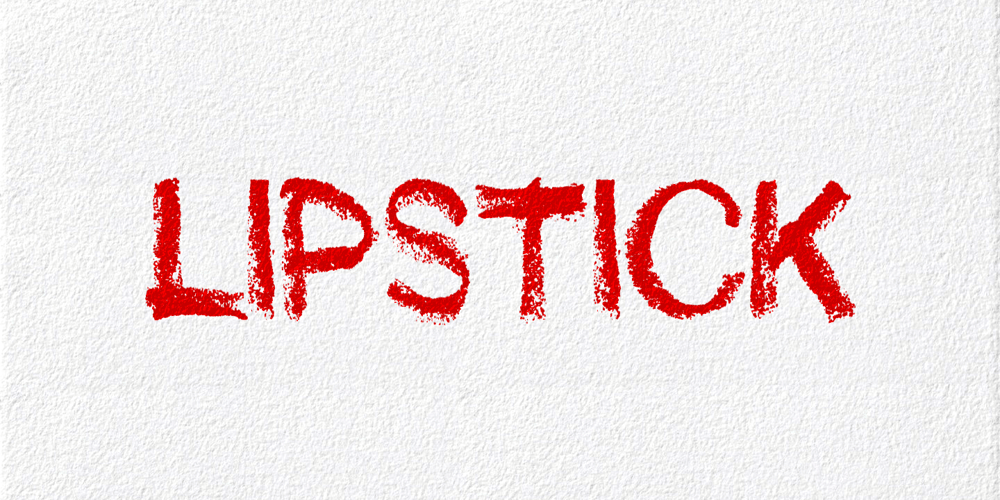
Lippy Font Family was designed by Alex Haigh and published by HyperFluro. Lippy contains 1 styles and family package options. Lippy is designed to give a 100% lipstick feel. The reason the lipstick feel is so authentic is because the original sketches were actually drawn in lipstick, taken into illustrator, retraced and then edited carefully in Fontlab. If you’re after a lipstick typeface with an authentic feel, then lippy is the one for you.